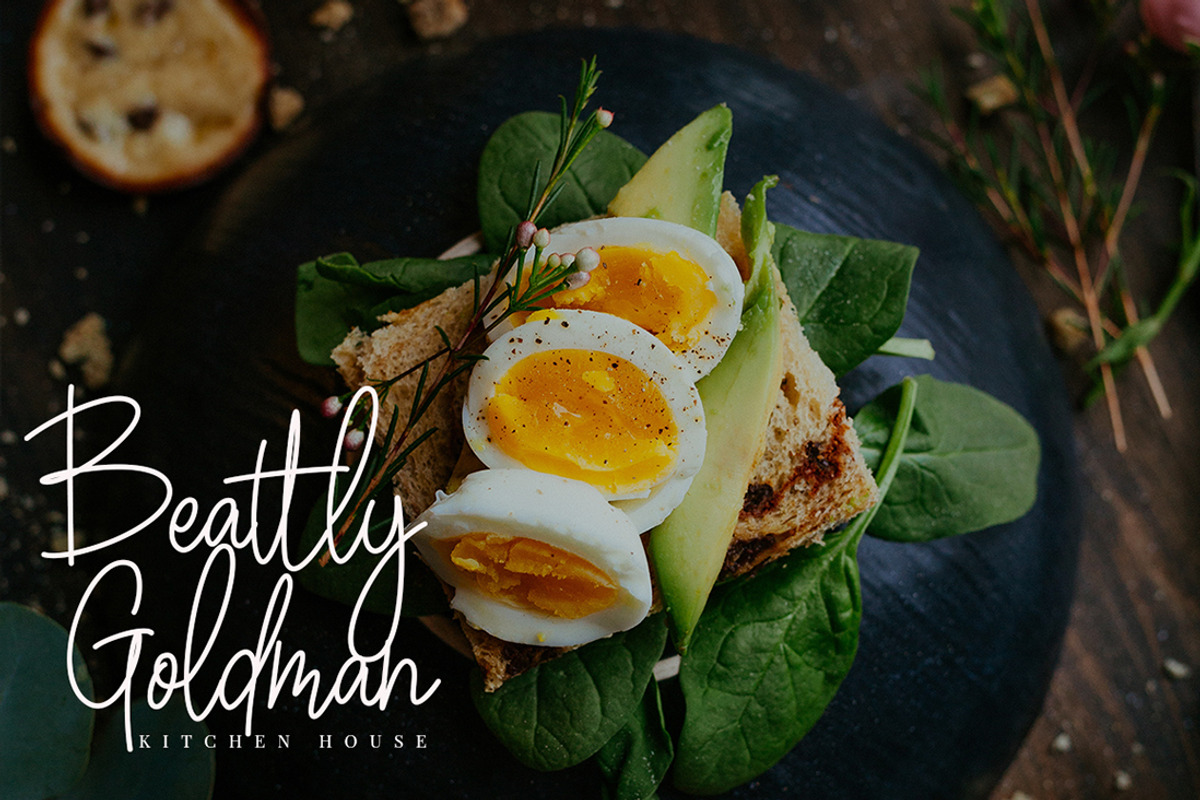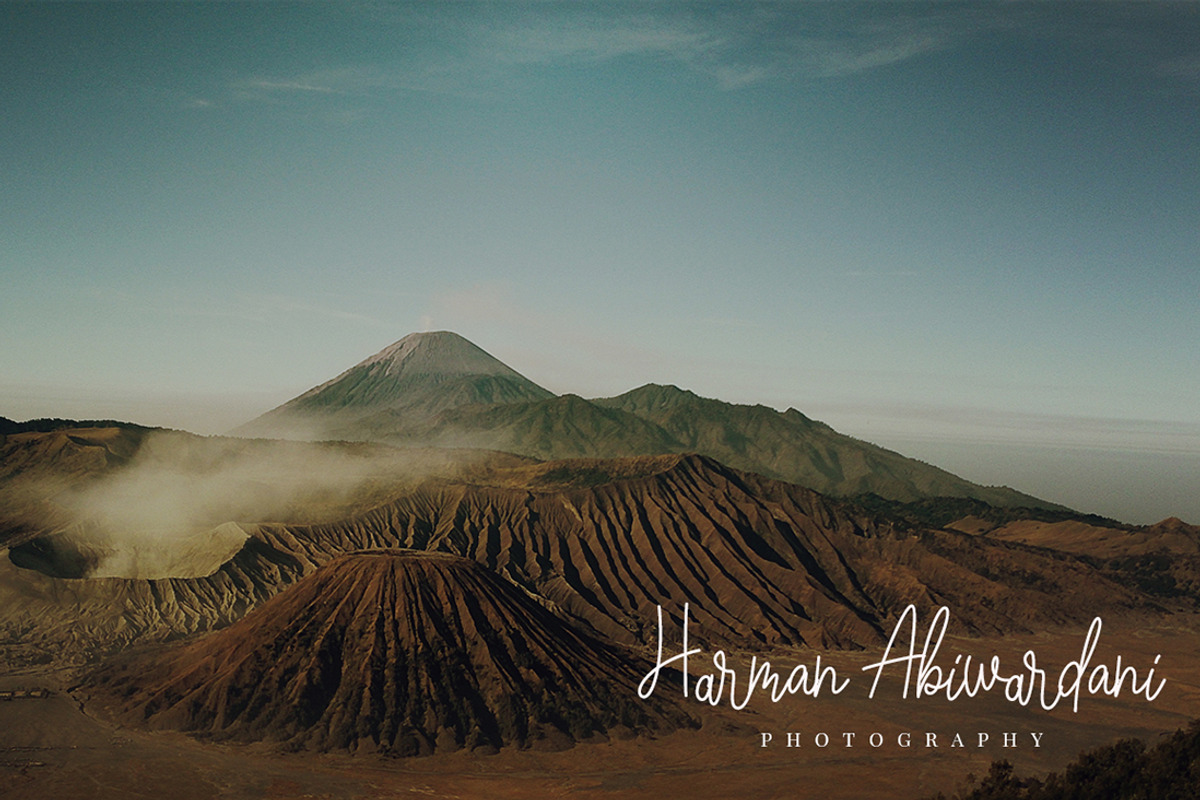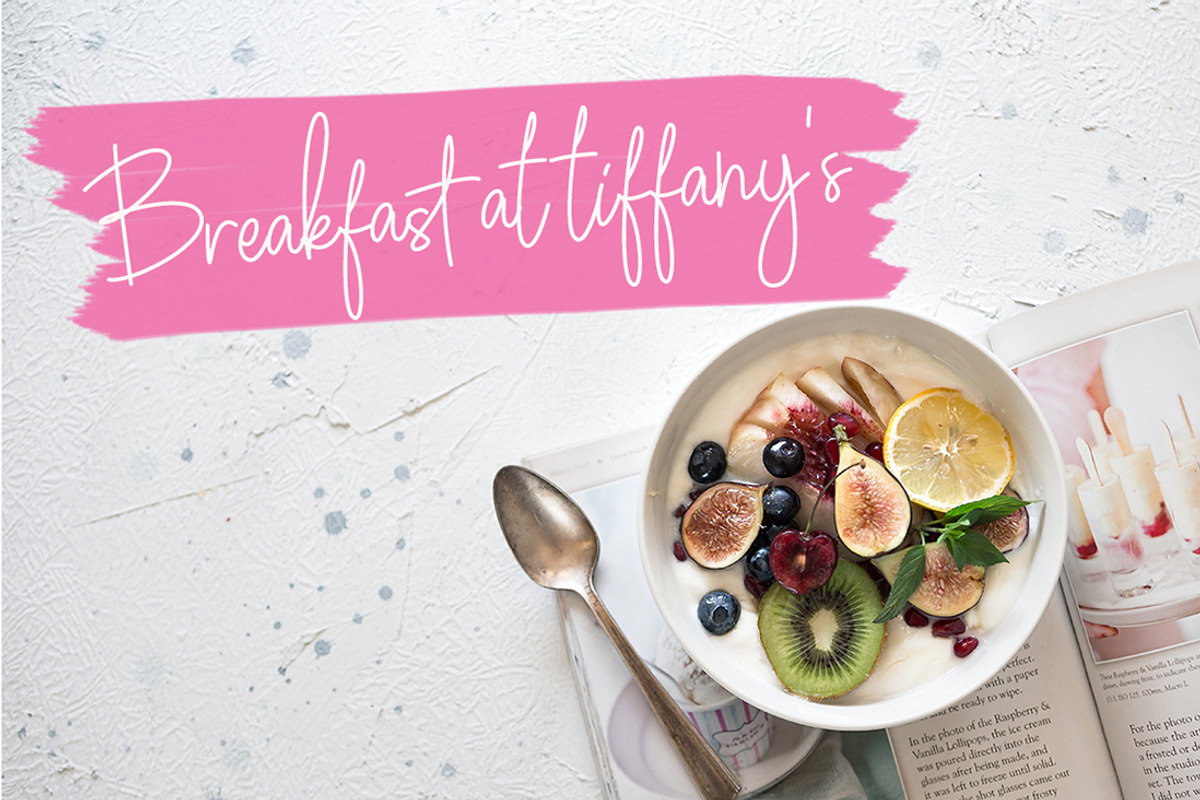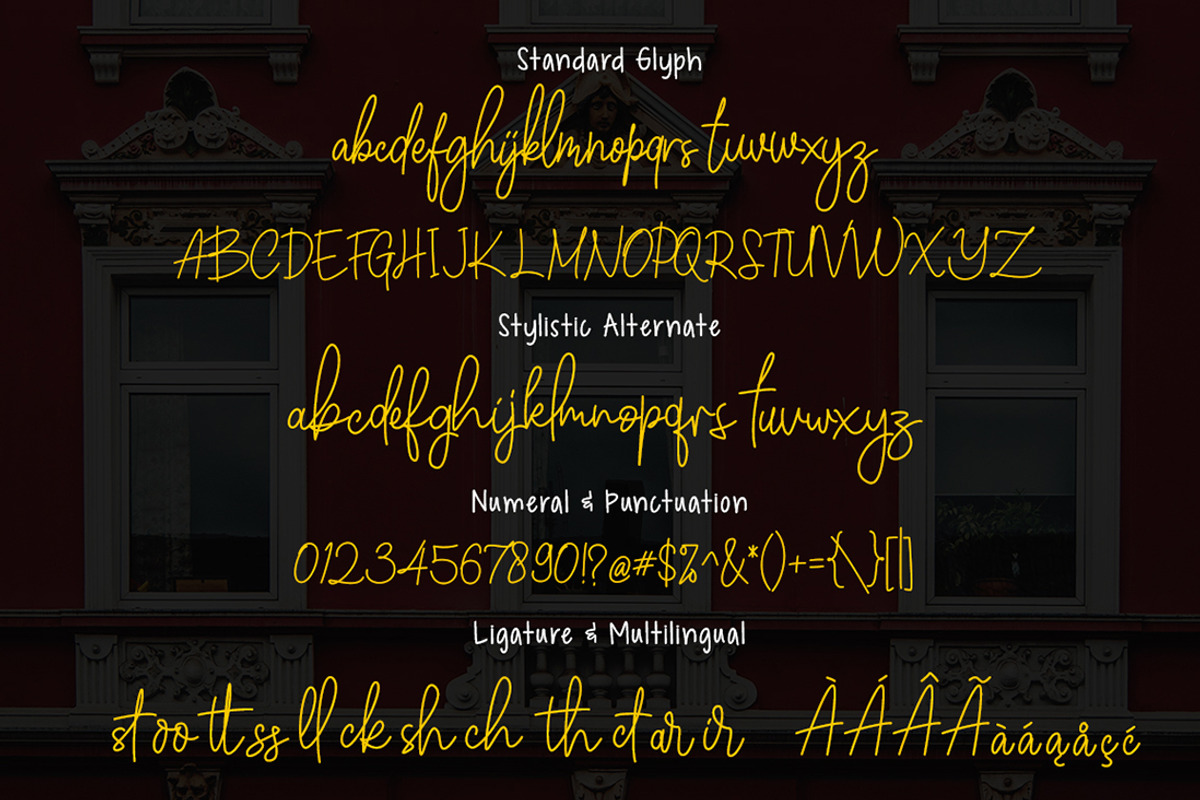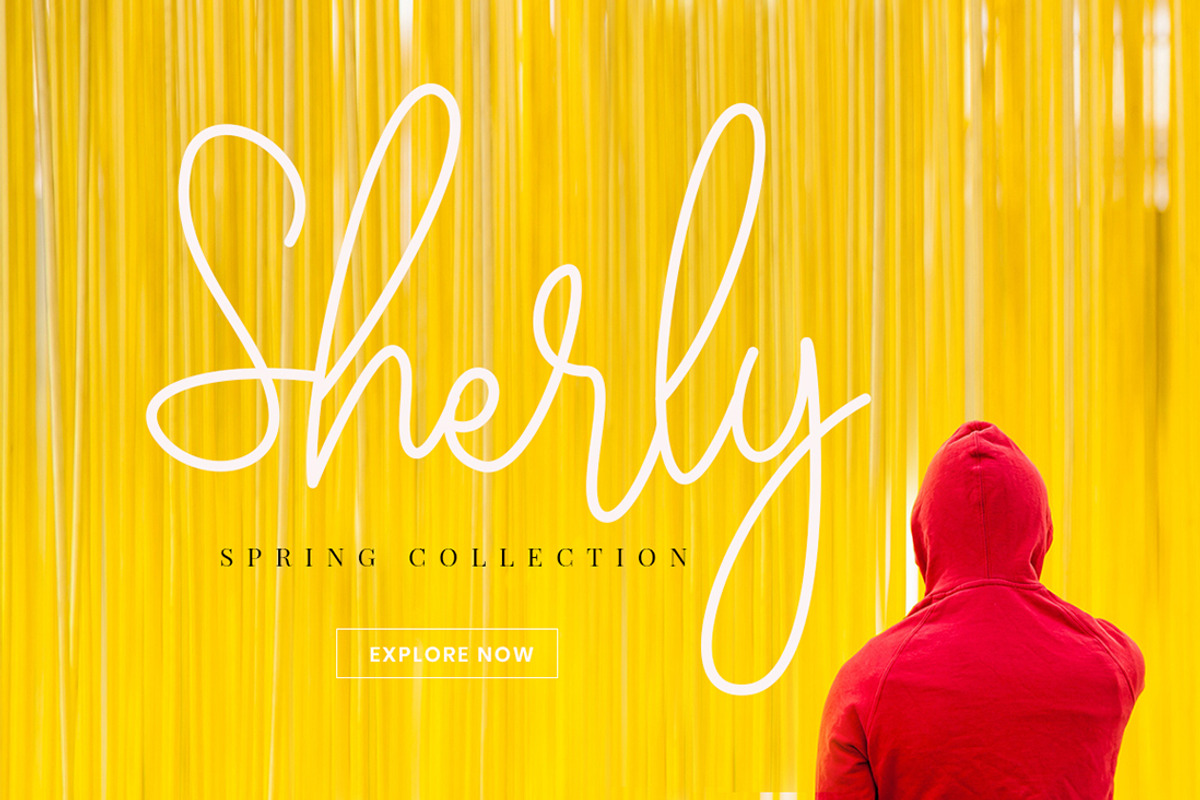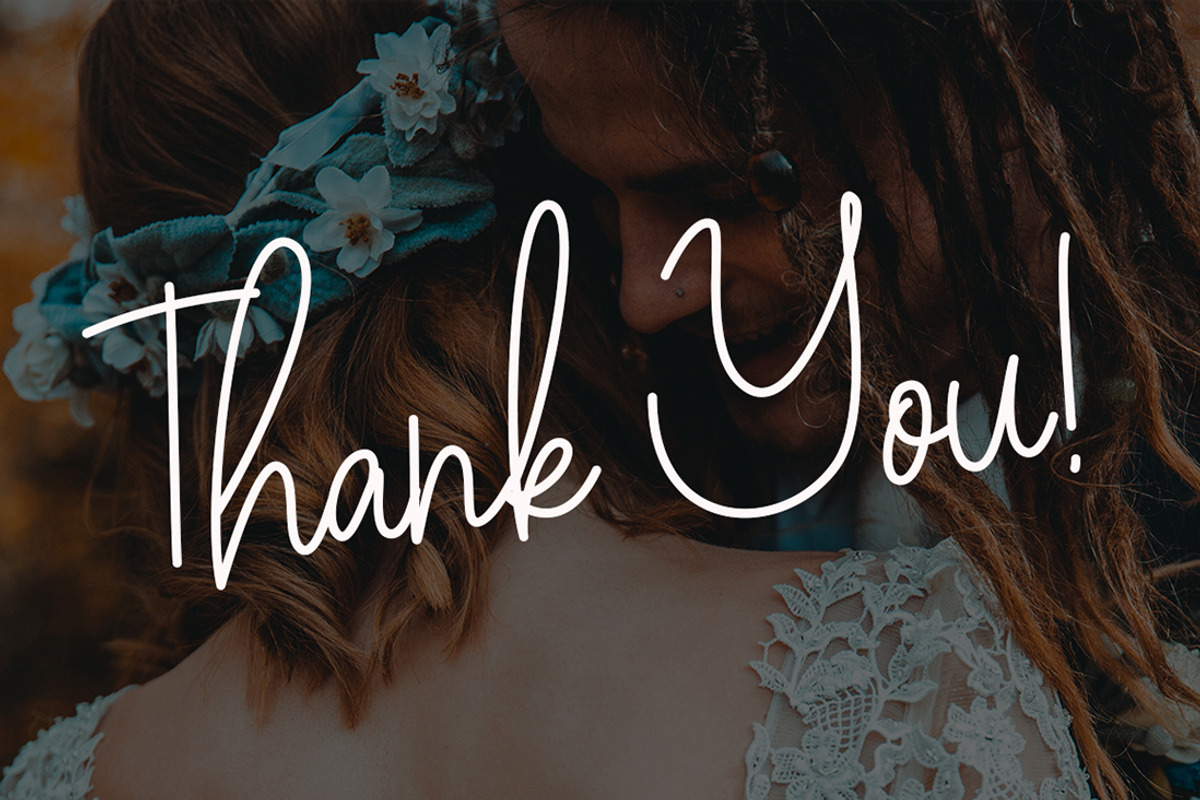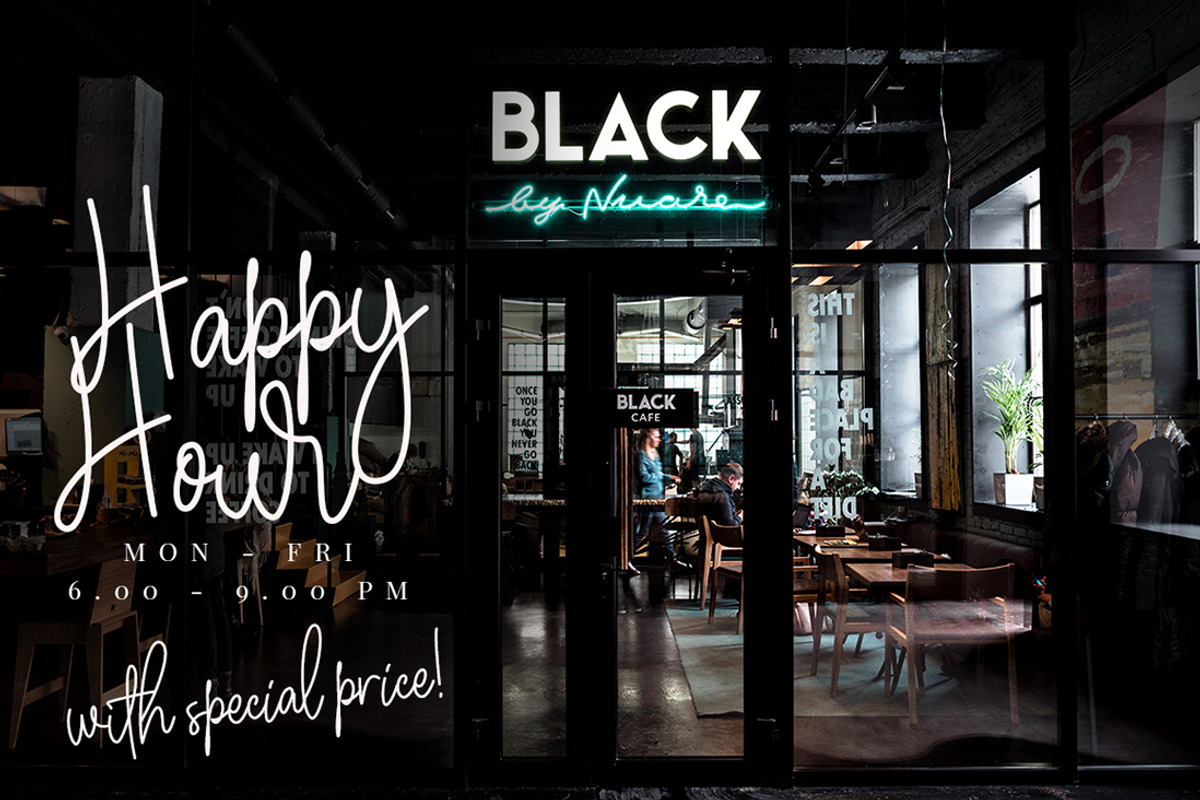
Winchester Signature Business Font
Introducing - Winchester signature script font which stylish natural handwritten font with beautiful curve in every single corner. This font is so fashionable & elegant and perfect for photography, branding, signature and logo .
Include Multilingual support
- More than 240 of glyphs
- Ligature & Stylistic alternate